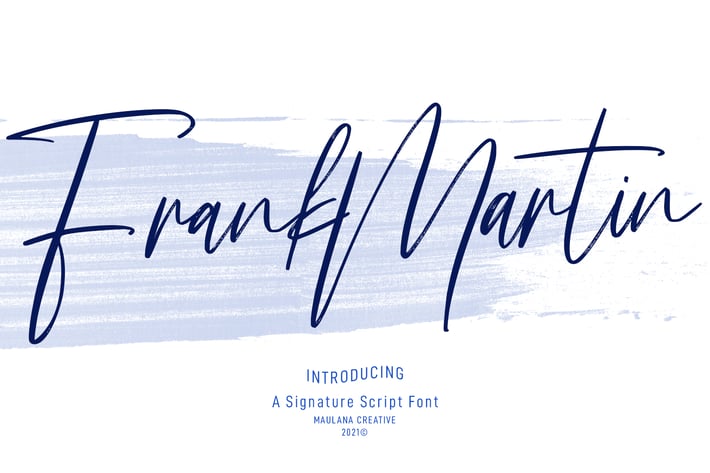
Frank Martin Signature Brush Font
Frank Martin is a Fancy Signature script font. With contrast stroke, slanted and fun character with a bit of ligatures and lowercase alternates. To give you an extra creative work. Frank Martin font support multilingual more than 100+ language. This font is good for logo design, Social media, Movie Titles, Books Titles, a short text even a long text letter and good for your secondary text font with sans or serif. Make a stunning work with Frank Martin font.